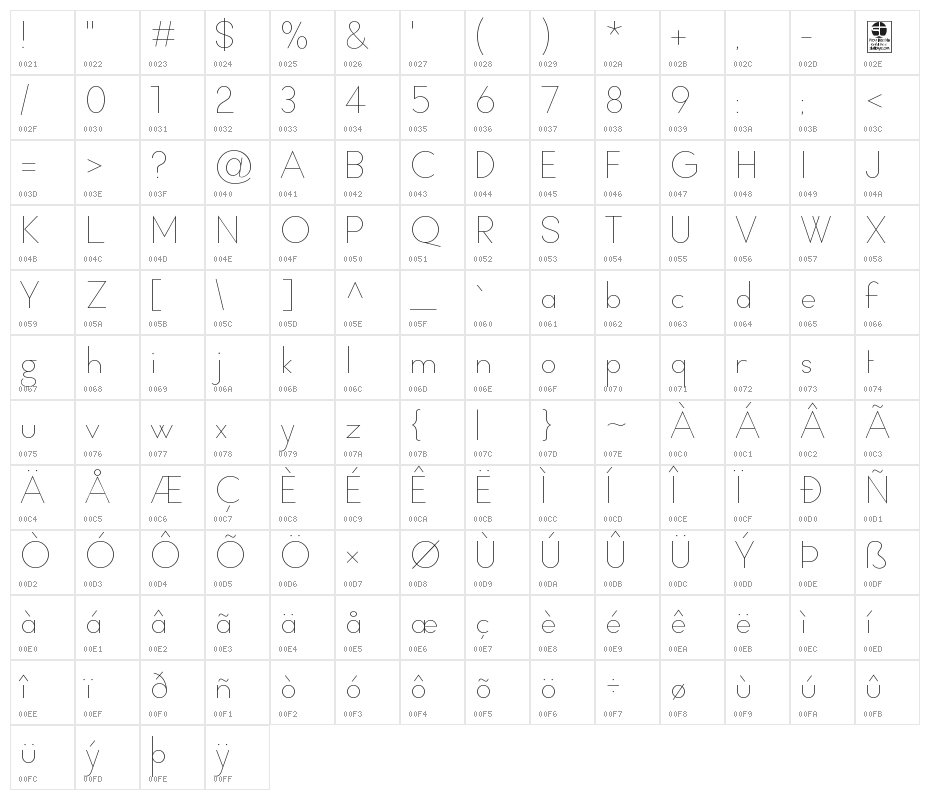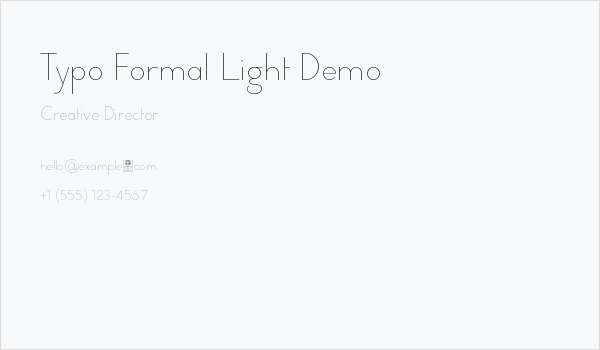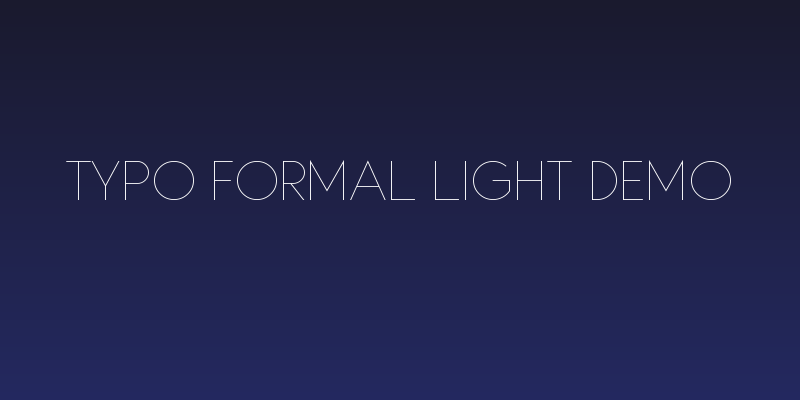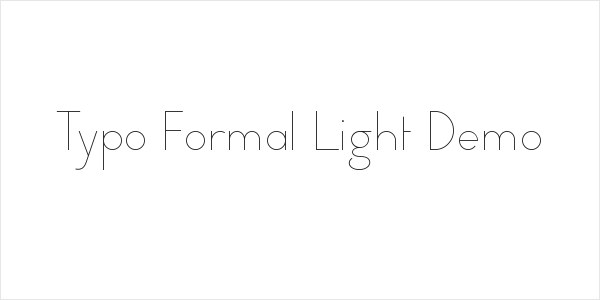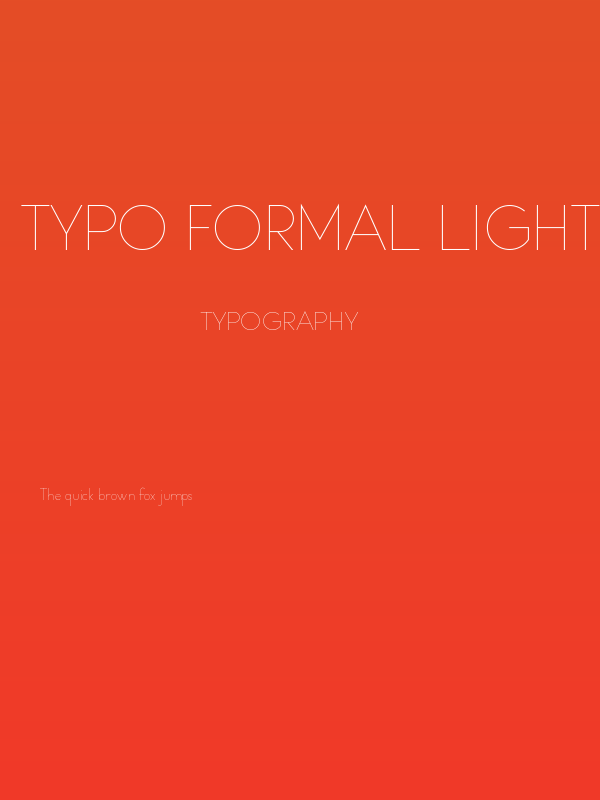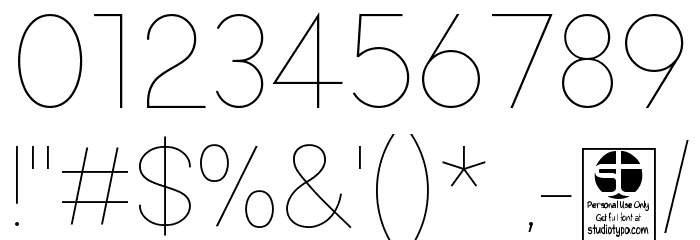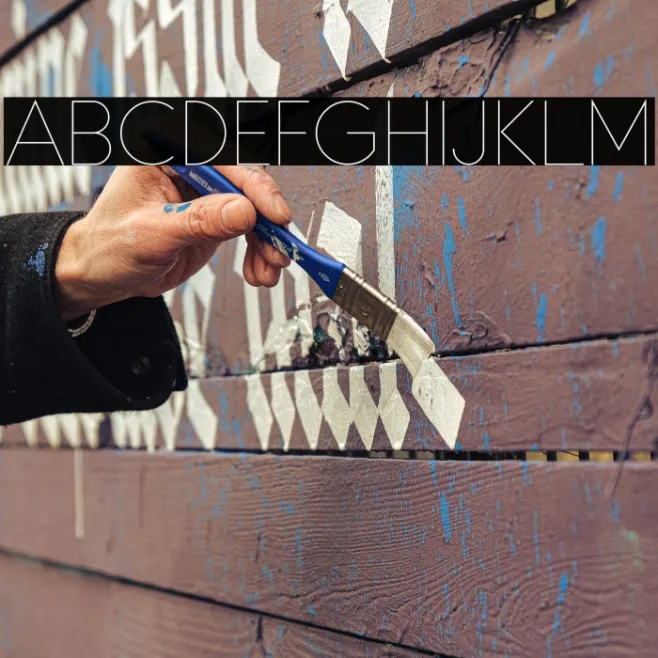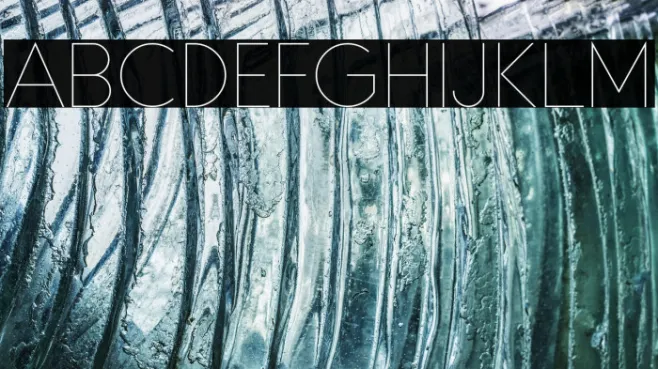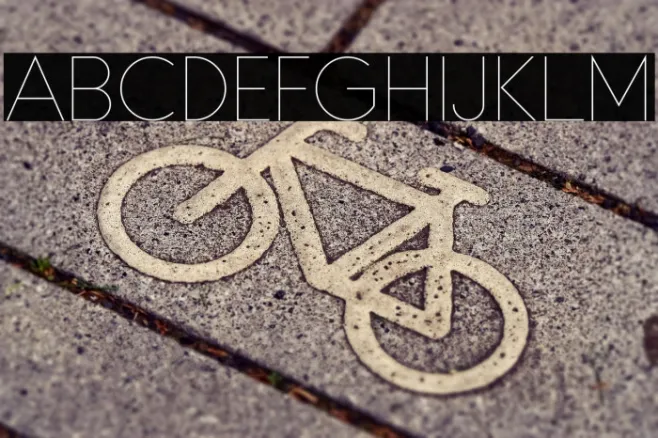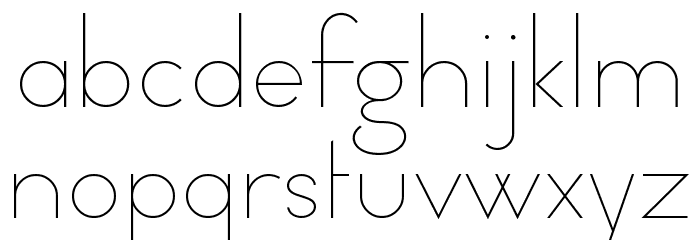
Typo Formal Light Demo Font
Typo Formal Light Demo Description
This font features a clean and minimalist design with thin, uniform strokes that give it a light and airy appearance. The characters are well-proportioned with a modern aesthetic, making it suitable for contemporary design projects. The uppercase and lowercase letters maintain a consistent style, with rounded edges and a geometric structure. Numbers and special characters are designed to complement the overall look, ensuring readability and elegance. The font's simplicity and clarity make it versatile for various applications.
| Proposed Projects | Ideal for branding, editorial design, web design, and minimalist posters. |